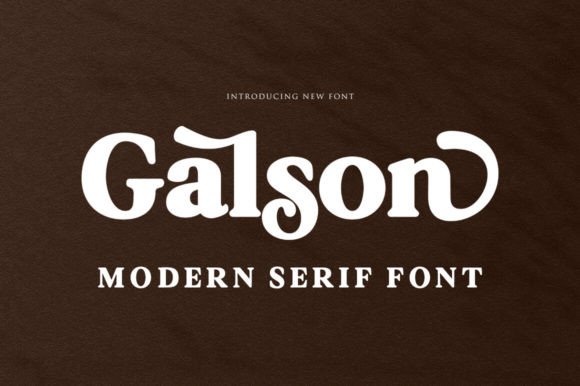
Introducing Galson Font, the epitome of elegance and modernity for all your design needs! Created by typehill, this exquisite serif font is the perfect choice for those seeking the best fonts for modern logos. With its smooth and clean lines, Galson Serif exudes a sense of sophistication that will captivate your audience from the very first glance.
When it comes to versatility, Galson Font knows no bounds. Its unique and timeless design makes it suitable for a wide range of applications, whether you're designing invitations, labels, menus, or fashion-related materials. Its feminine and sensual touch adds a glamorous allure to any project, making it an ideal choice for makeup brands, stationery, and even romantic novels.
Reading has never been easier with Galson Serif. Its simplicity and readability make it a joy to peruse through magazines, books, and greeting cards. The font's classic style adds a touch of elegance to any piece of writing, making it perfect for letterpress projects and packaging designs.
One of the standout features of Galson Font is its extensive character set. With PUA encoding, accessing the font's amazing glyphs and ligatures is a breeze. This means you have a vast array of design possibilities at your fingertips, allowing you to create truly unique and eye-catching visuals.
But Galson Font is more than just a pretty face. It evokes emotions and tells a story with every stroke. Its clean lines and modern aesthetics exude confidence and professionalism, making it a must-have for businesses looking to make a bold statement. Whether you're a startup or an established brand, Galson Serif will elevate your brand identity and leave a lasting impression on your target audience.
In a world where first impressions matter, Galson Font ensures that your designs make a lasting impact. Its clean and elegant typography speaks volumes about your attention to detail and commitment to quality. With Galson Serif, your brand will stand out from the crowd and leave a lasting imprint in the minds of your customers.
Don't settle for ordinary fonts when you can have the extraordinary. Galson Font is here to revolutionize your design game and take your projects to new heights. Experience the power of this captivating font and unlock a world of creative possibilities.